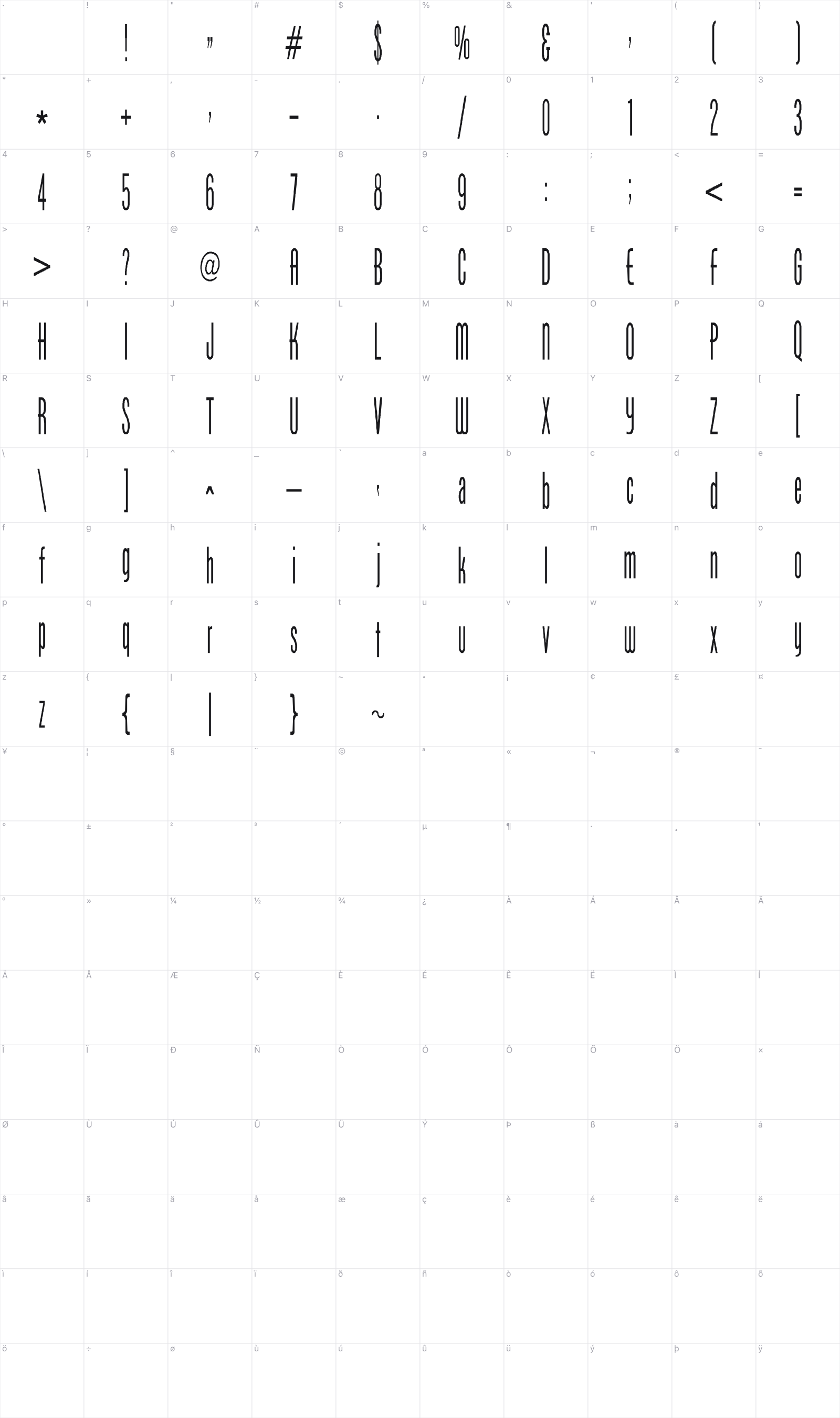
Venus Normal
Venus Normal is an ultra-condensed grotesque sans-serif with tall, tightly packed letterforms that make the most of limited horizontal space. The narrow proportions give it a distinctly modern, editorial quality, reading cleanly in headlines, column headers, and signage where vertical emphasis matters. Its origins are a bit murky, but the design sits comfortably in the tradition of early 20th-century European grotesks stripped down to their most compact form.